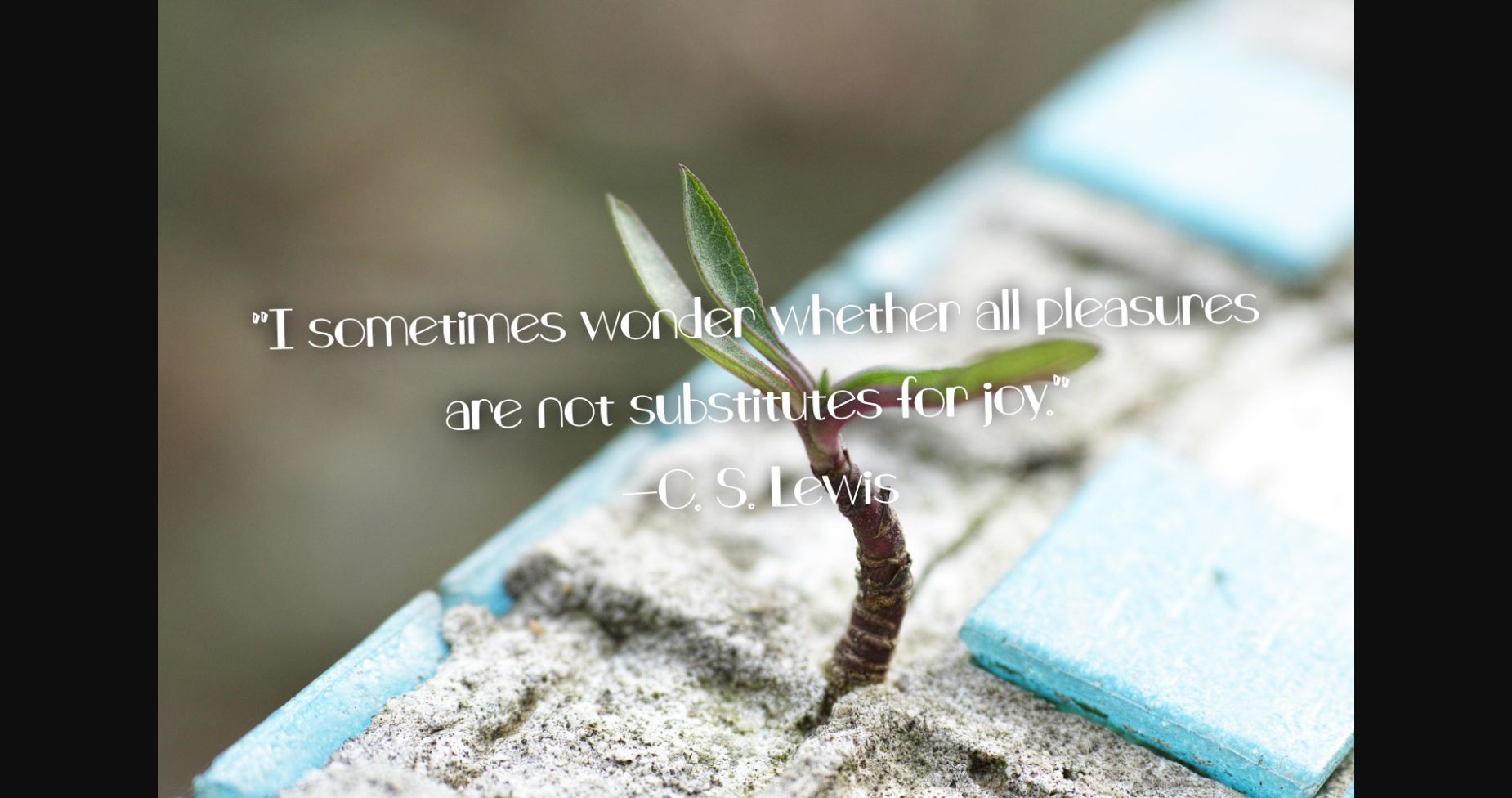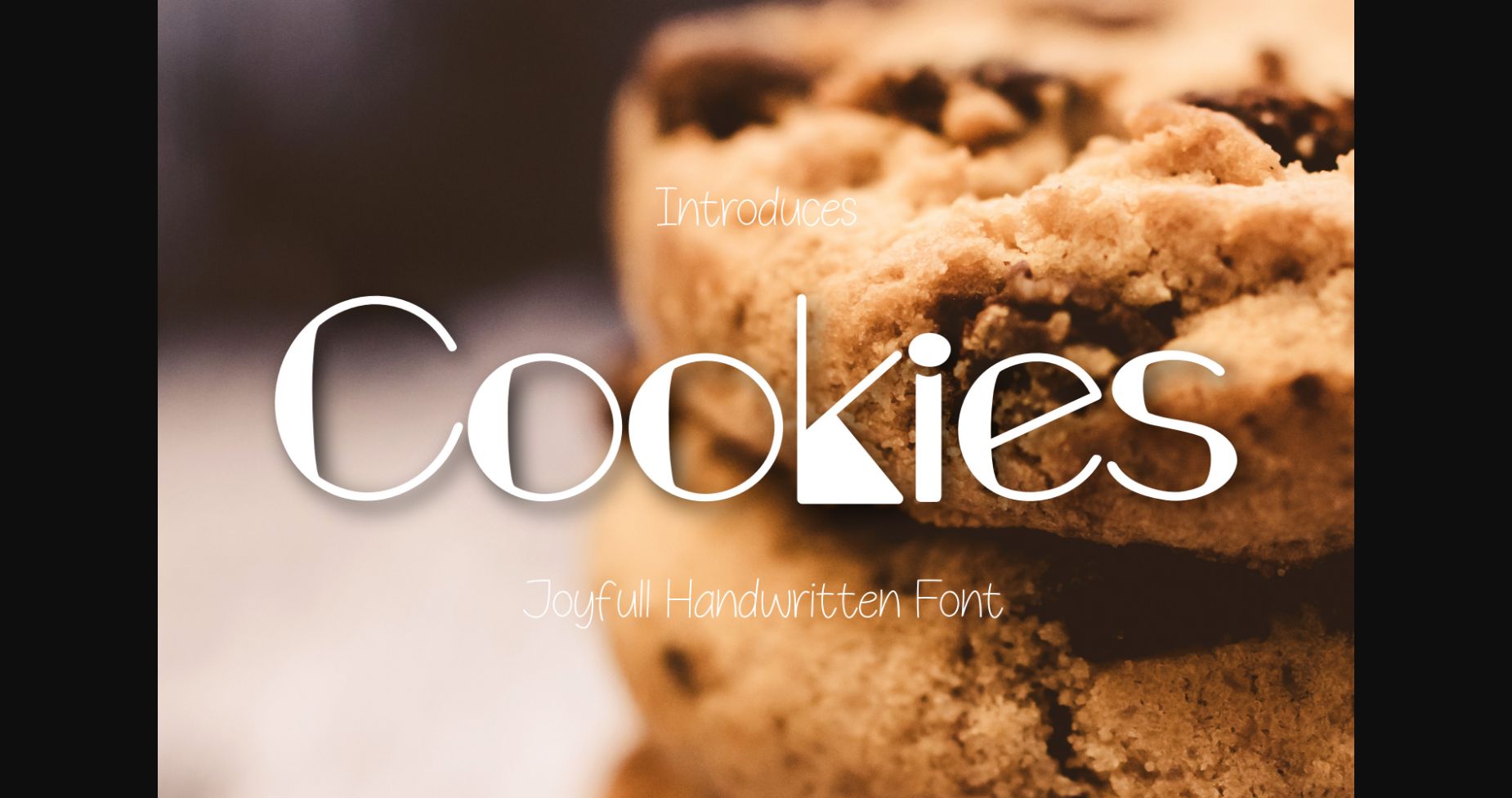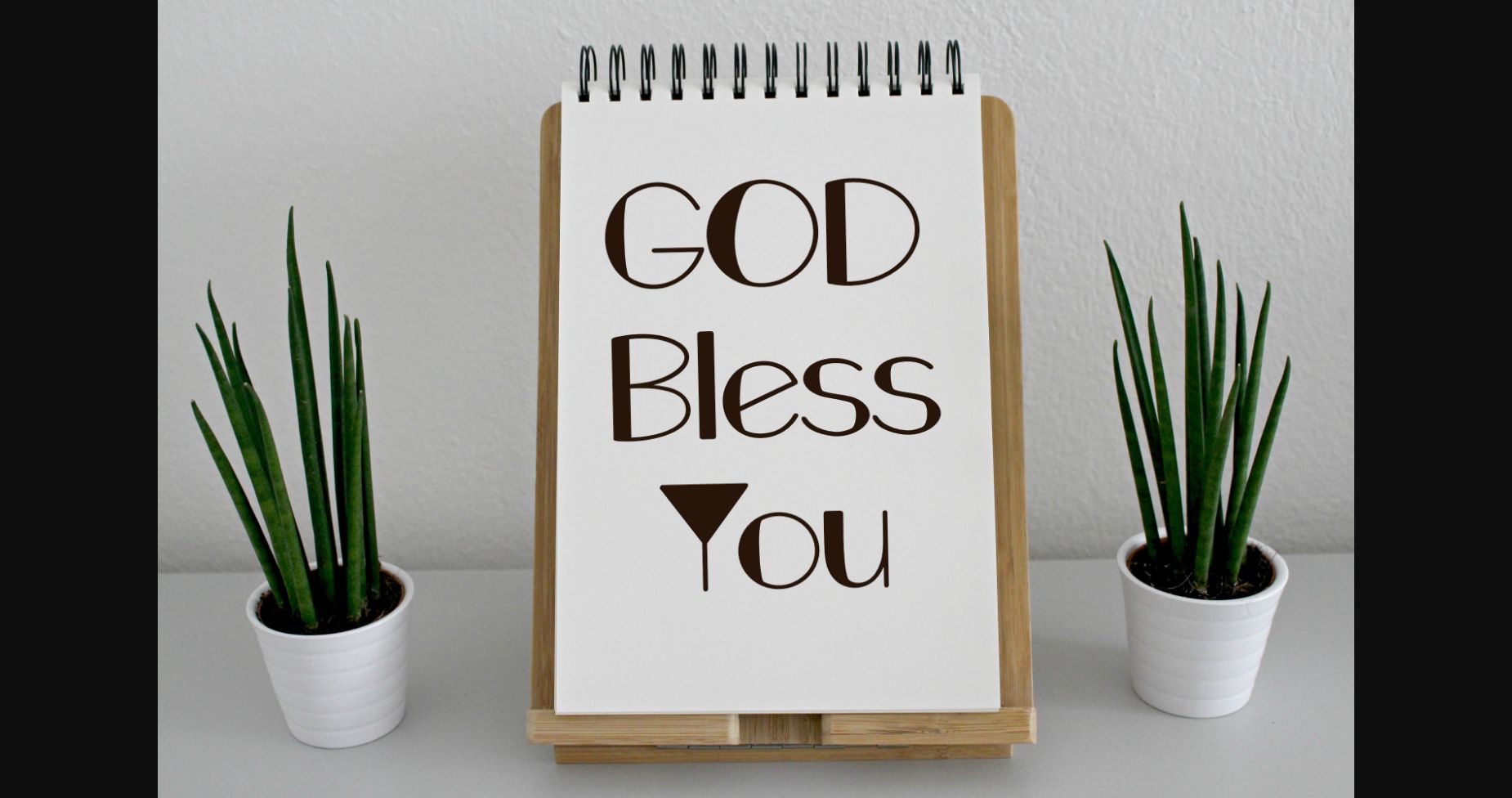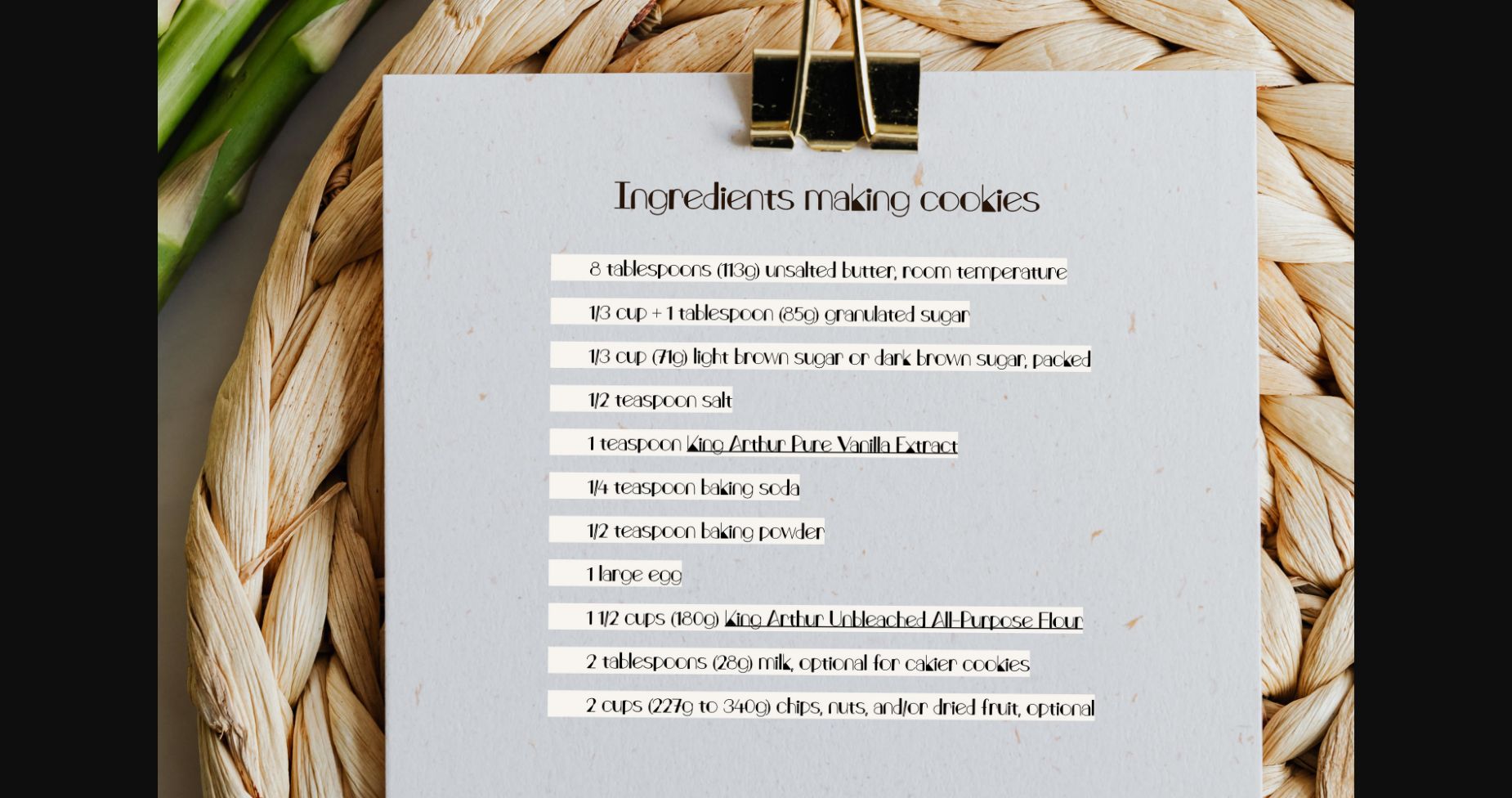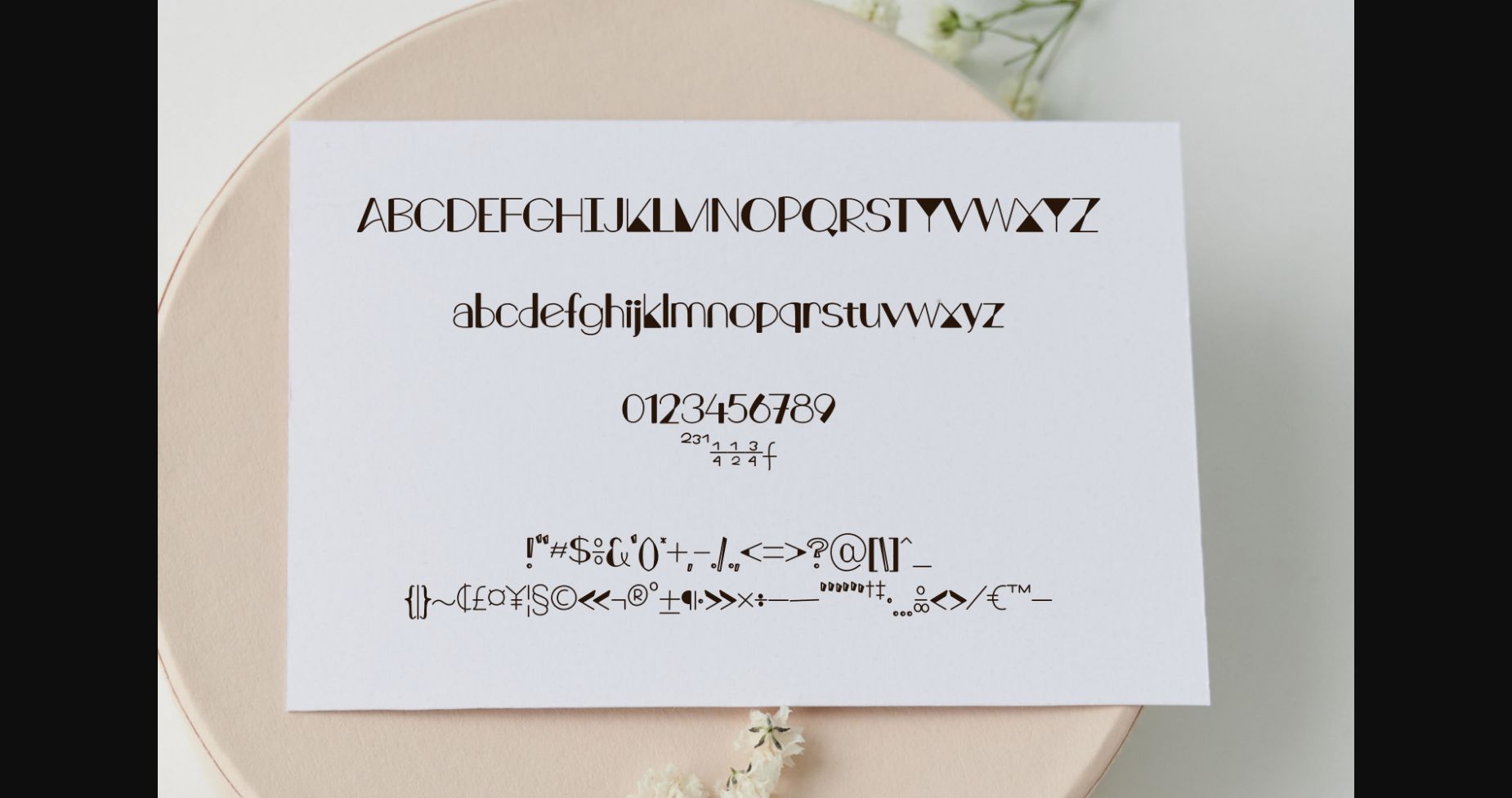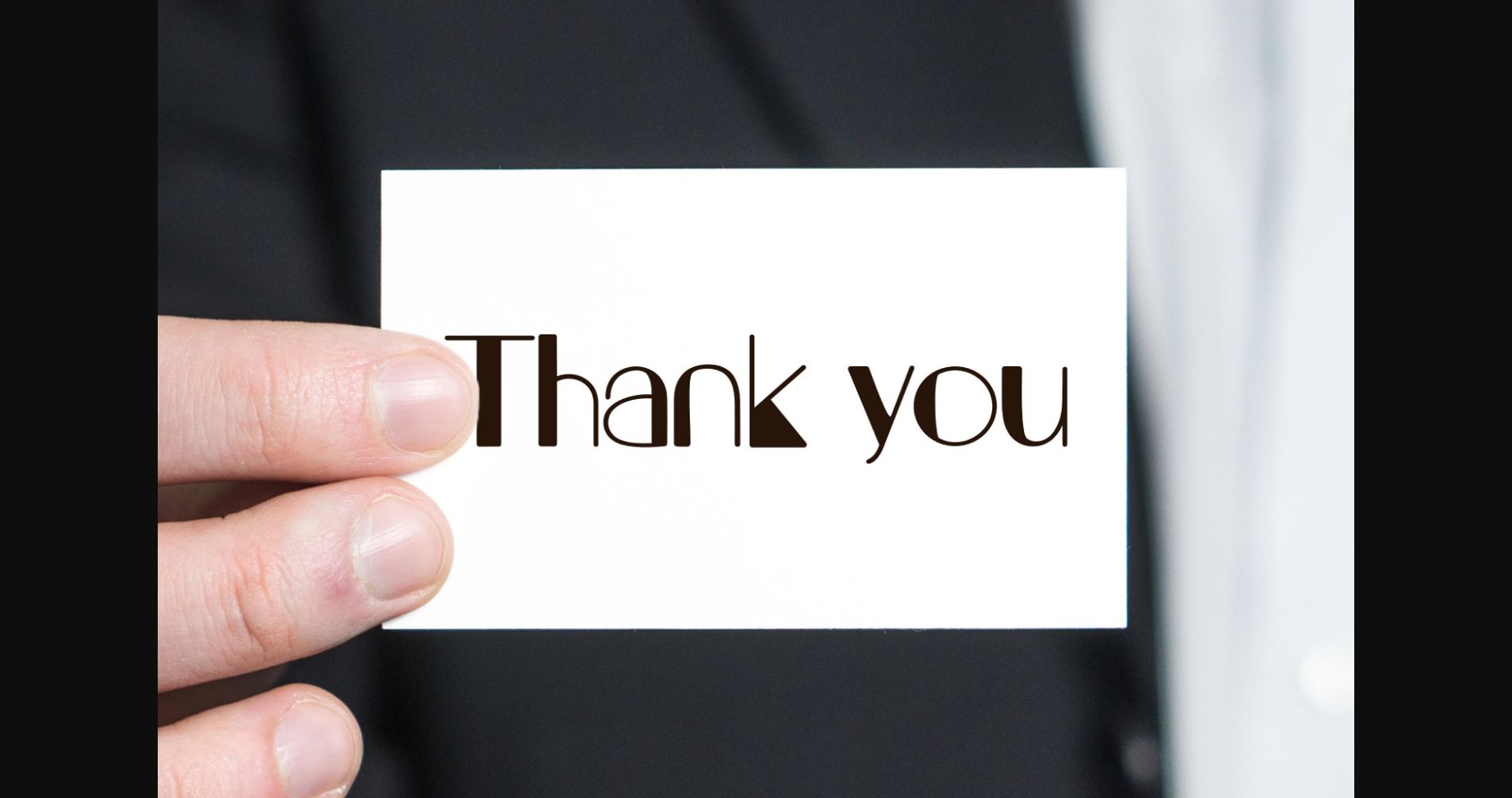
HomeSans Serif FontsCookies Font Sans Serif Fonts Cookies Font FacebookXPinterestWhatsApp 1 of 8 ... Cookies Font Poster 2... Cookies Font Poster 3... Cookies Font Poster 4... Cookies Font Poster 5... Cookies Font Poster 6... Cookies Font Poster 7... Cookies Font Poster 8... About Cookies Font Cookies is a quirky and stylish sans serif font with an elegant design. Its unique style makes it suitable for invitaions, cards, flyers, menus, displays, logos and more. DOWNLOAD NOW People also explored Regginance Font Flowee Font Hair Thinned Font Memorable Font Lovely Font Sunlight Script Font Girk – Variable Slab Serif Font Halloween Pumpkin Font shintia 346 0 TagsCookiesCookies Font Previous articleMephisto FontNext articleMister Overthink Font LEAVE A REPLY Cancel reply Comment: Please enter your comment! Name:* Please enter your name here Email:* You have entered an incorrect email address! Please enter your email address here Website: Save my name, email, and website in this browser for the next time I comment. Personal Use Free Stentiga Personal Use Free Read more about this font Almonte Personal Use Free Read more about this font BD Console Personal Use Free Read more about this font Hillgates Personal Use Free Read more about this font BLOG Fonts That Capture the Spirit of New York City New York City is more than just a place—it’s an experience, a rhythm, a visual language... Using Fonts in Digital Marketing: Tips to Strengthen Your Brand Identity Free vs Paid Fonts: Why Investing in Premium Fonts Is Worth It 5 Fonts That Will Dominate Design Trends in 2026